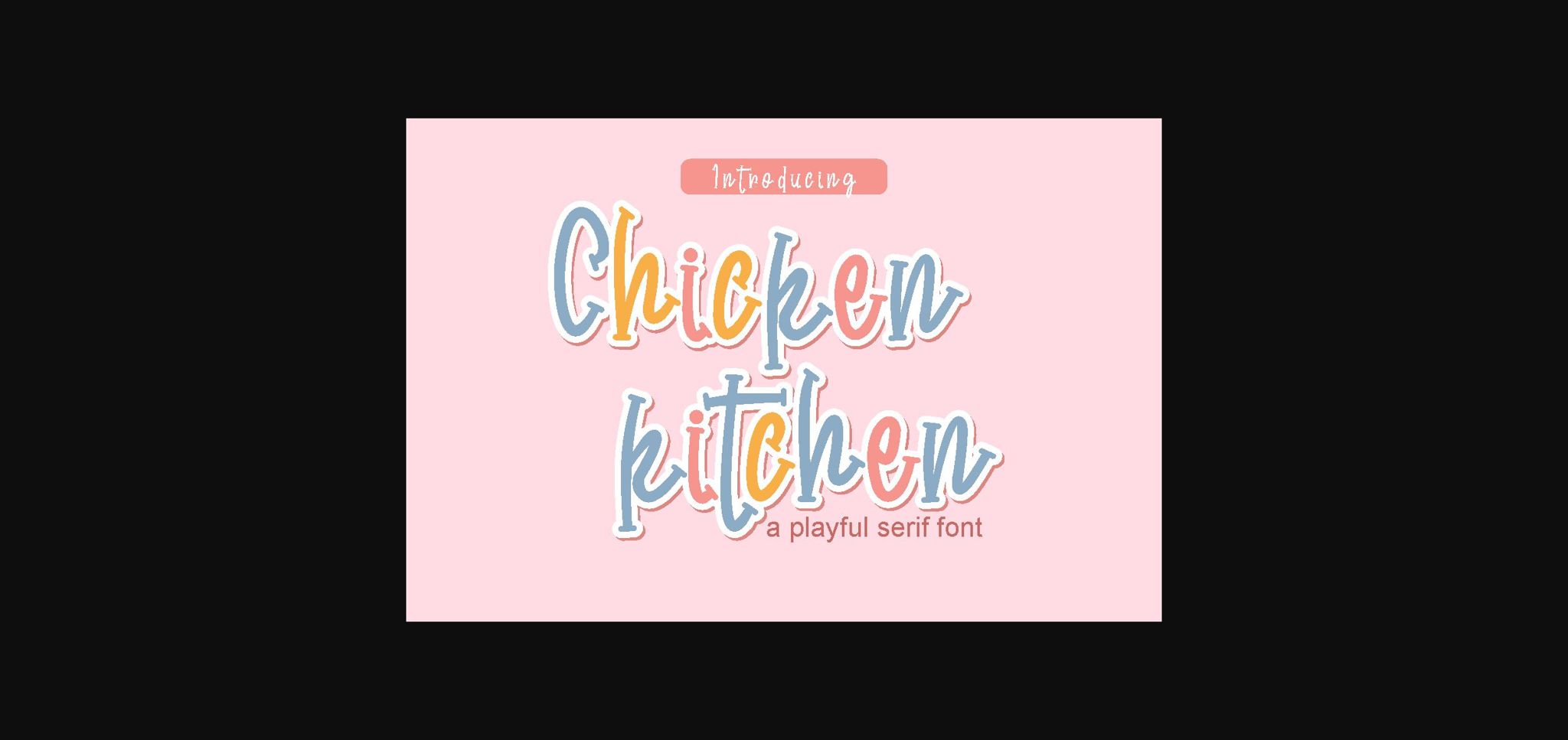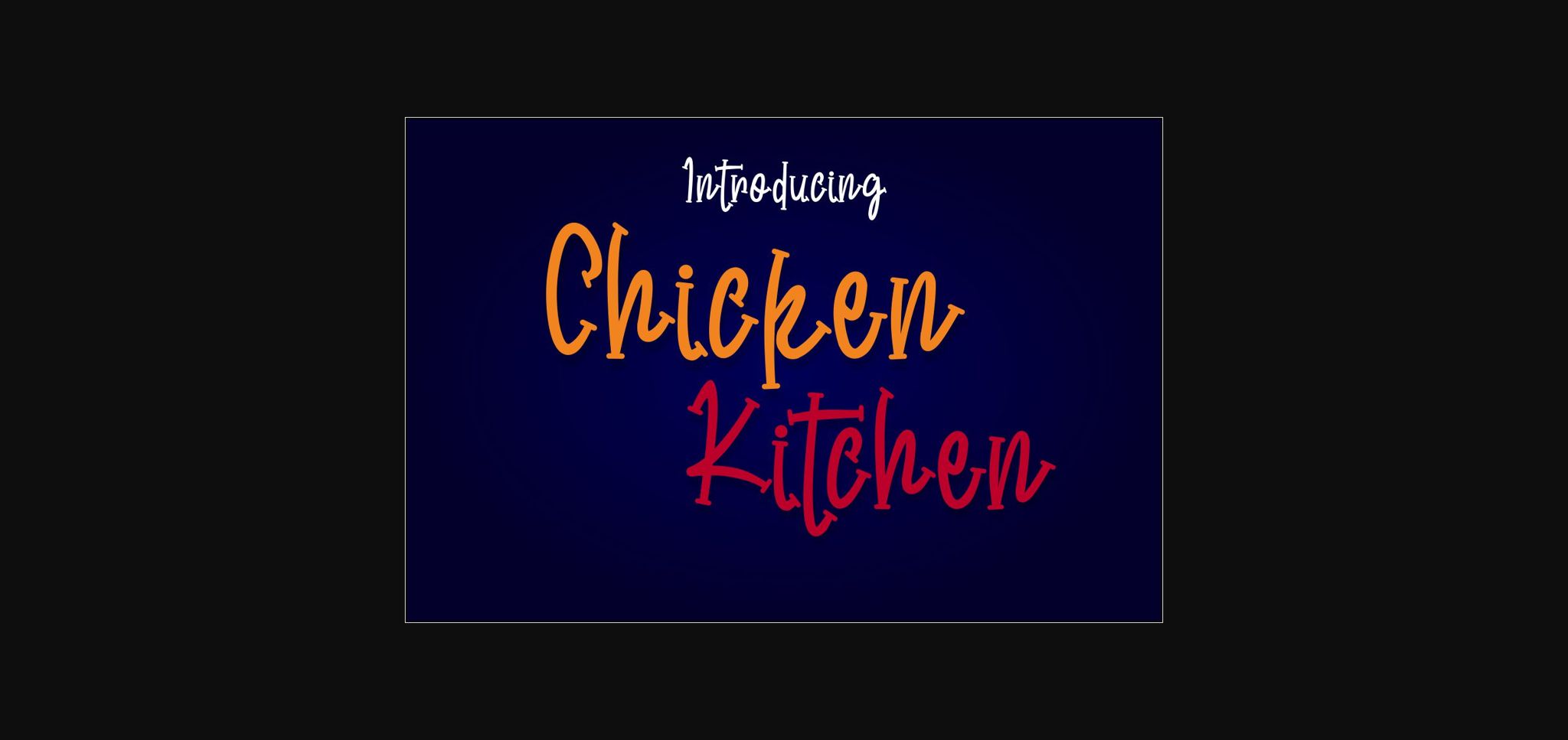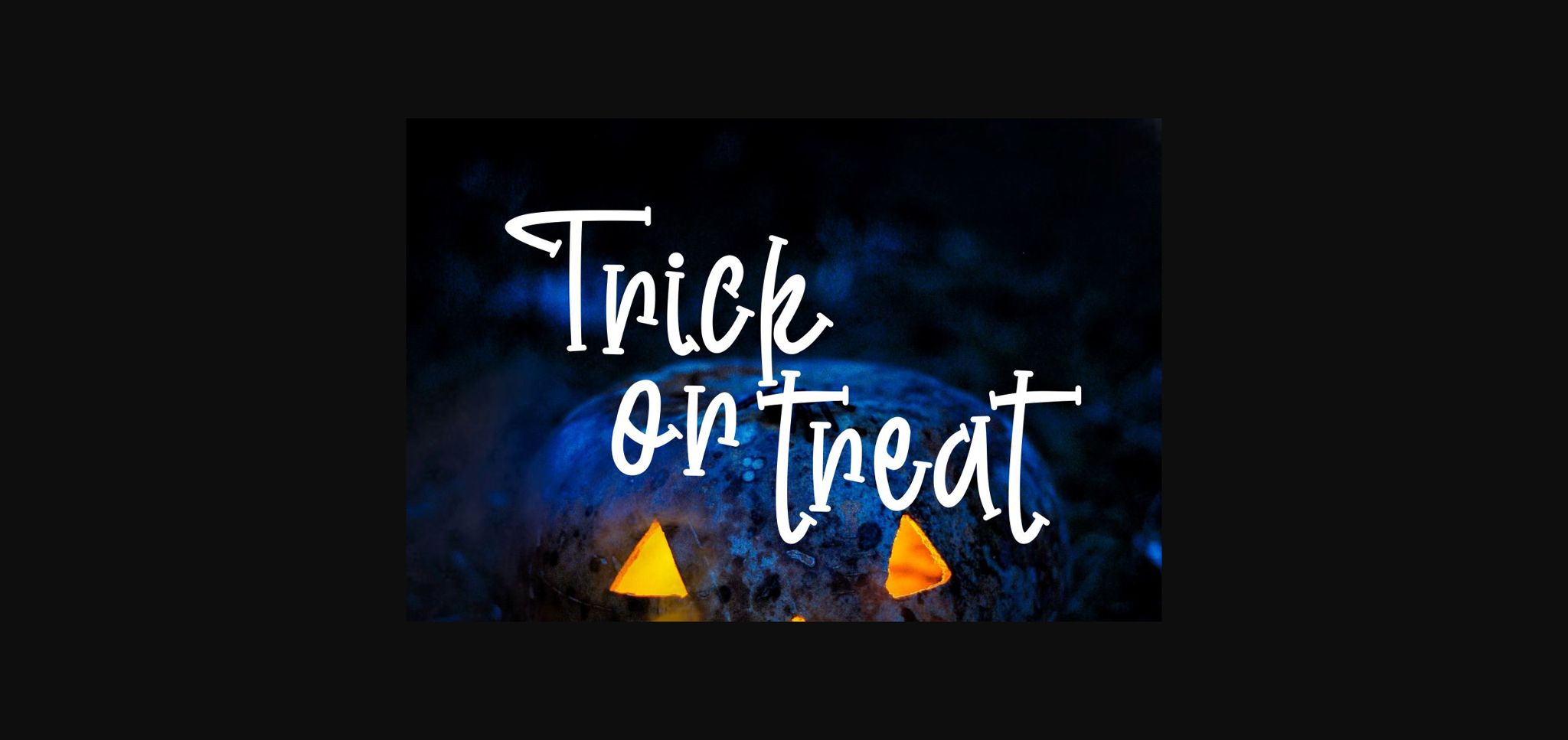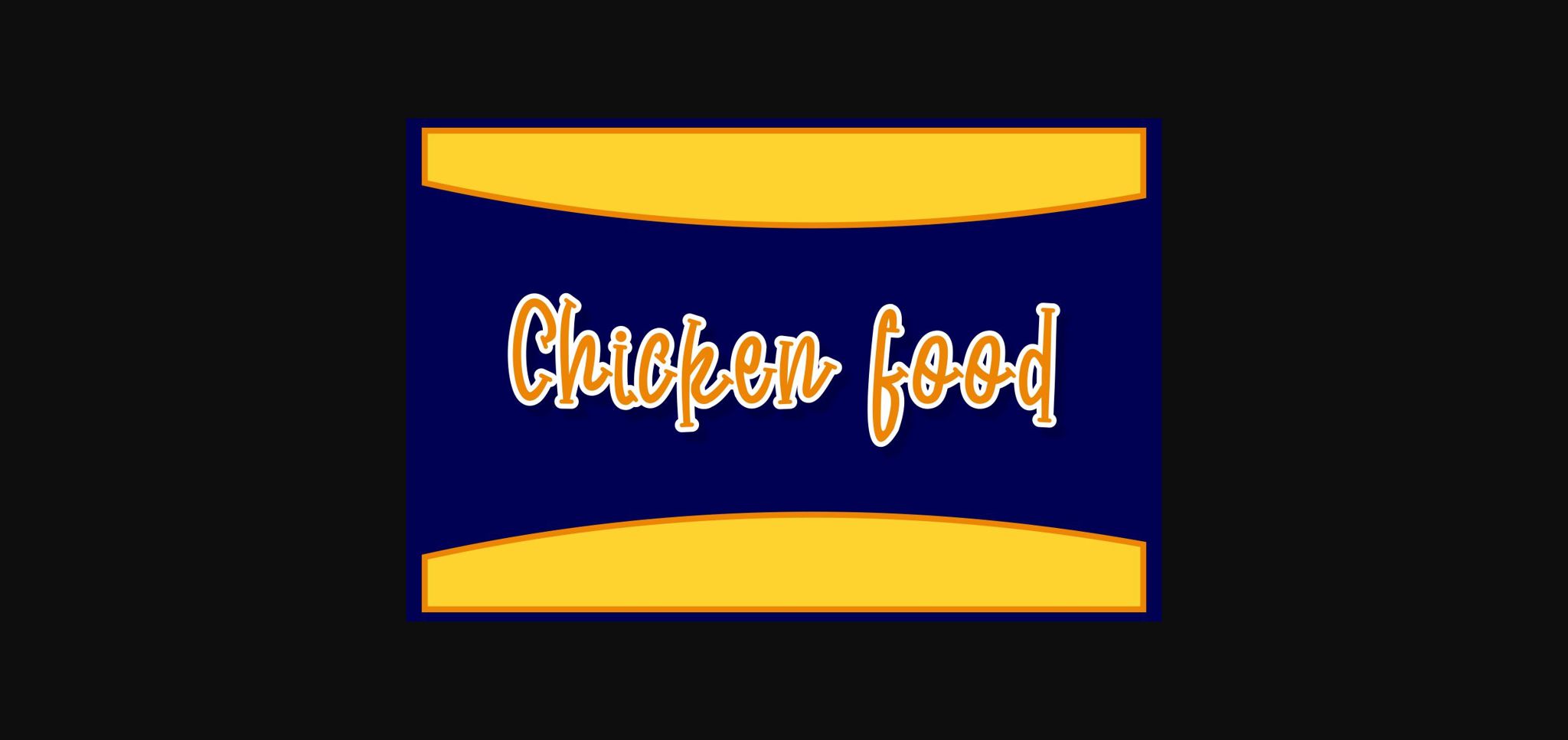
About Chicken Kitchen Font
Chicken Kitchen is a fun, and friendly serif font. Whether it’s used for Halloween-themed projects or back-to-school crafts, it will add a sassy touch to any design!